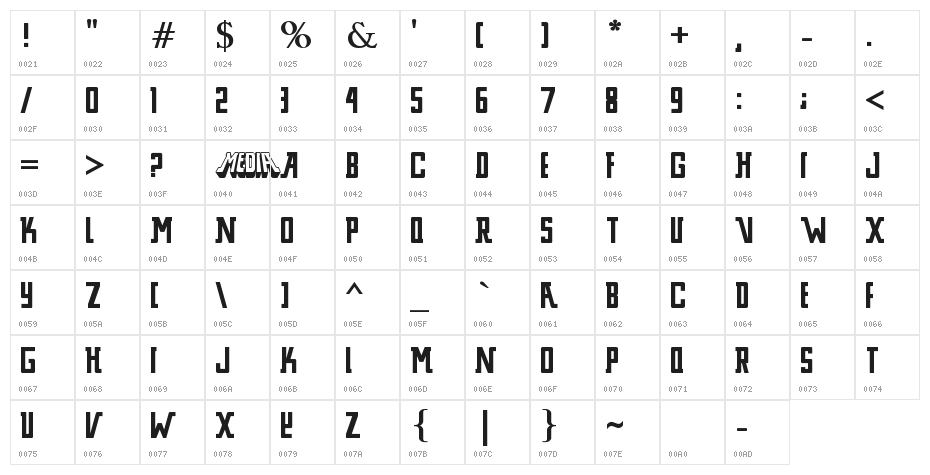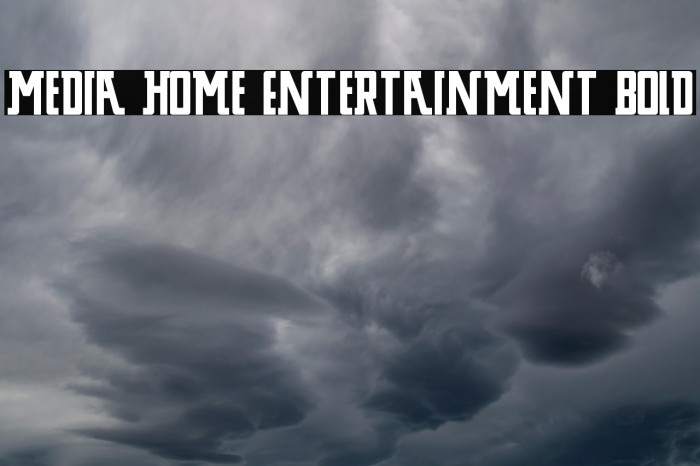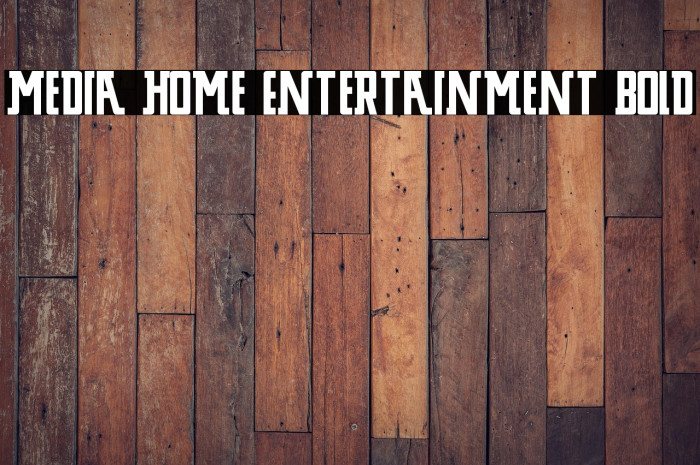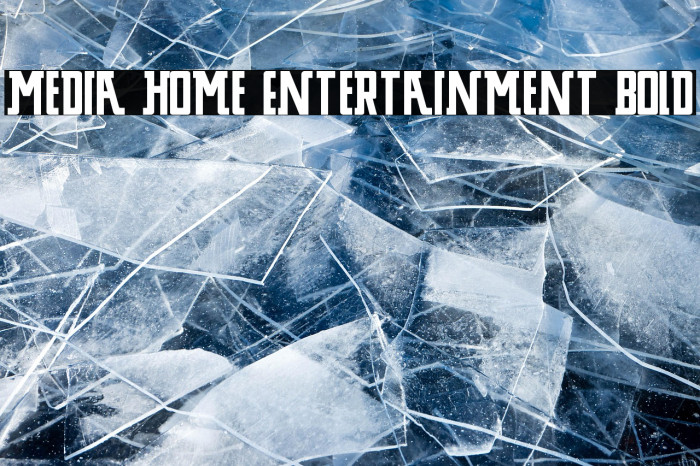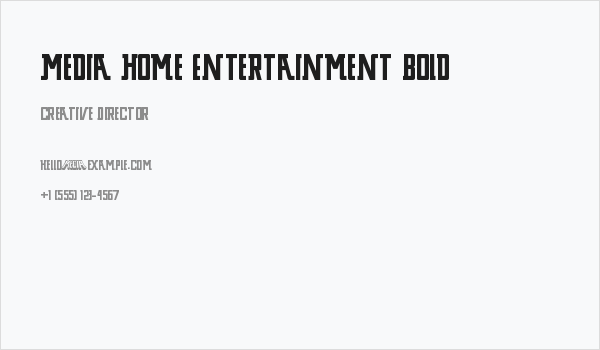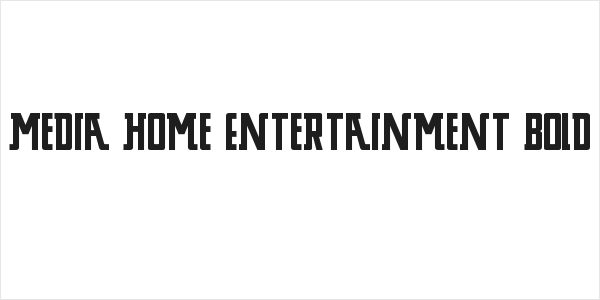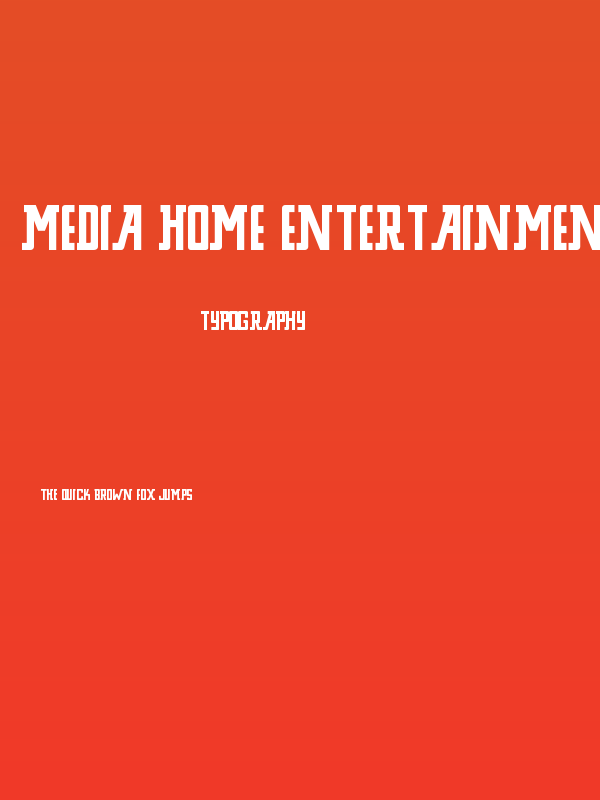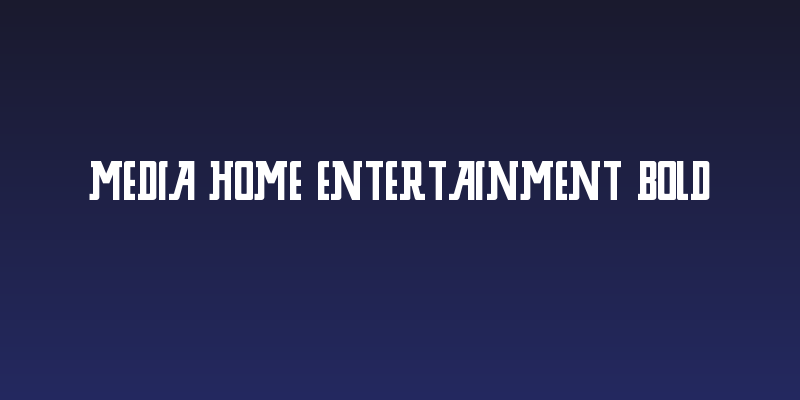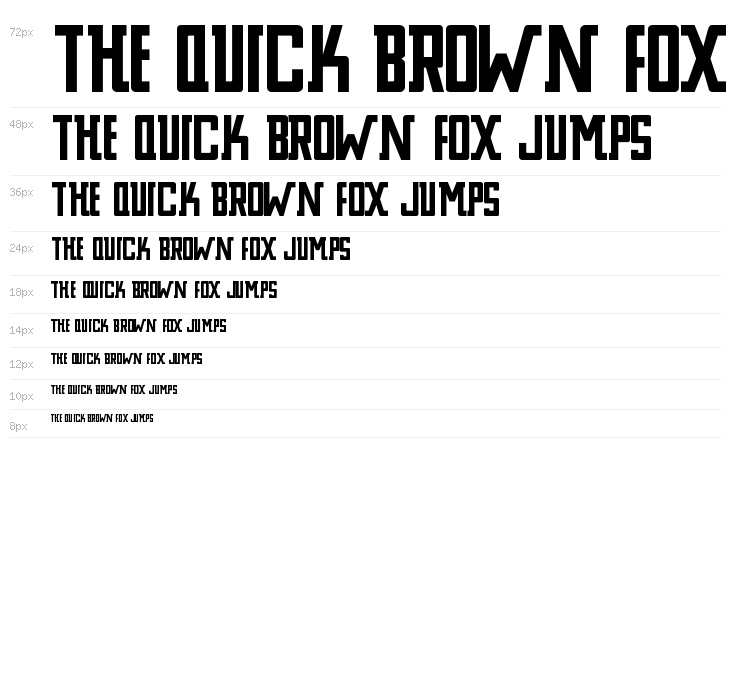
Media Home Entertainment Bold Font
Media Home Entertainment Bold Description
This font features a bold and striking design with a strong presence. The characters are constructed with thick, uniform strokes, giving them a robust and impactful appearance. The angular and geometric shapes of the letters contribute to a modern and assertive style. The uppercase and lowercase letters maintain a consistent height, enhancing the font's uniformity. The numerals are equally bold, ensuring readability and emphasis. Special characters are designed with the same boldness, making them stand out distinctly. This font is ideal for projects that require a strong visual impact.
| Proposed Projects | Ideal for headlines, posters, branding, and any design requiring a bold statement. |